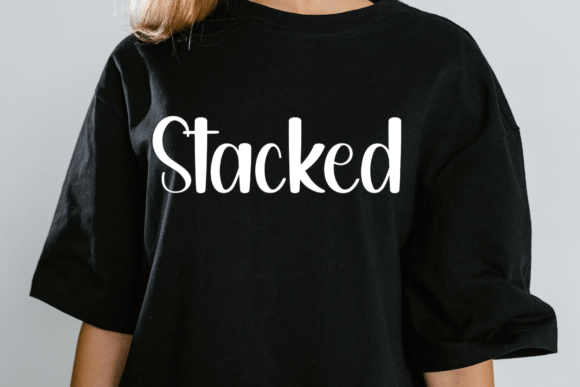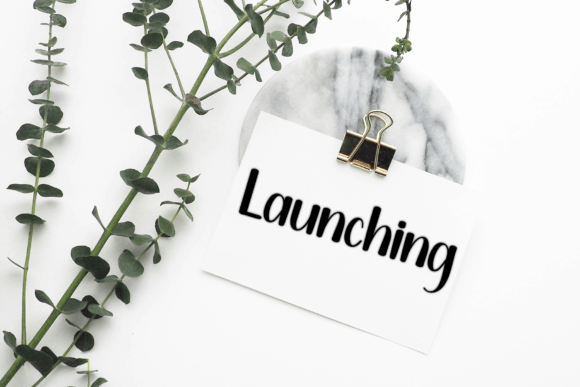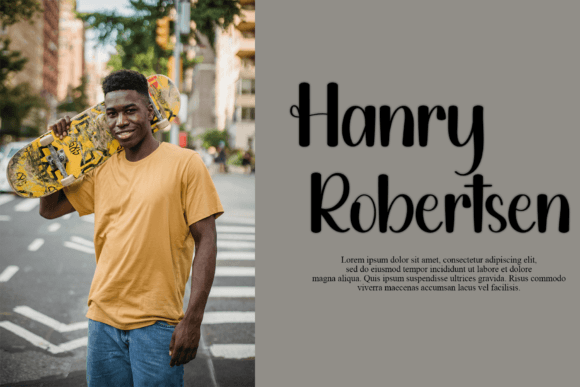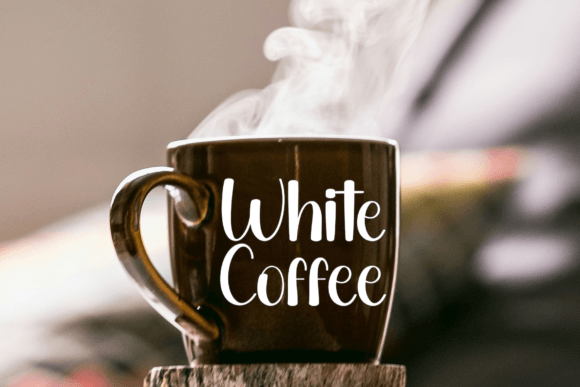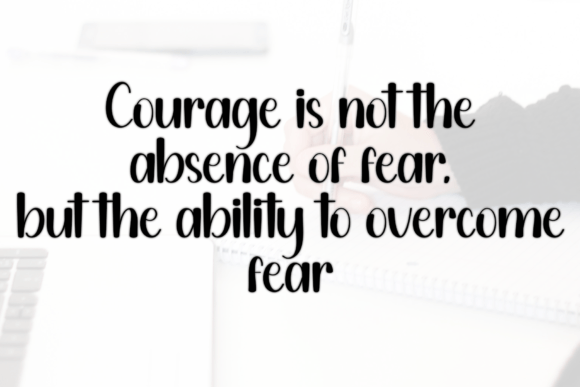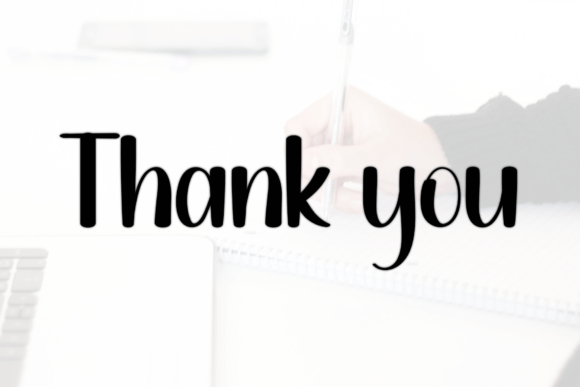
Introduction to Mindsets Font
You know that moment when you stumble upon the perfect font to elevate your design project? For many creatives, it’s like finding the missing piece of a puzzle that brings everything together. And that’s exactly what the Mindsets Font does – it adds a touch of warmth and personality to any design. With its fluid strokes and organic lines, this charming display font is sure to capture the essence of your creative vision.
Whether you’re working on a high-quality branding project, crafting a beautiful invitation, or designing social media graphics, the Mindsets Font is a valuable design resource that’s hard to resist. And the best part? It’s available for free download, making it accessible to designers of all levels. Plus, with a transparent background, you can easily integrate it into your design without any distractions.
So, what are you waiting for? Dive into the world of Mindsets Font and discover a new level of creativity for your next design project.
Key Features of Mindsets Font
- High-quality design: Mindsets Font is a premium design resource featuring elegant and modern typography.
- Perfect for creative projects: Mindsets Font is ideal for use in branding, logos, typography-based designs, and other creative projects.
- Regular and bold weights: The font includes both regular and bold weights, offering flexibility for use in a variety of design contexts.
Honest Review: Mindsets Font
I recently stumbled upon the Mindsets Font, a free download that caught my attention with its unique design. As a designer, I appreciate high quality fonts that can elevate my creative project. In this review, I’ll share my honest thoughts on what works well and what could be improved.
- The Mindsets Font has a clean and modern aesthetic, making it perfect for contemporary designs.
- The font library is relatively small, which may limit its versatility in certain design scenarios.
- The font may not be as versatile in smaller text sizes, which can make it harder to read.
Overall, the Mindsets Font is a solid addition to any designer’s toolkit. While it may have some limitations, its high quality design and customizable options make it a valuable resource for creative projects. I would recommend giving it a try and seeing how it can elevate your next design.
The Mindsets Font is perfect for creative projects such as logos, business cards, brochures, and social media graphics. It’s also suitable for educational materials, presentations, and documents that require a clean and professional design.